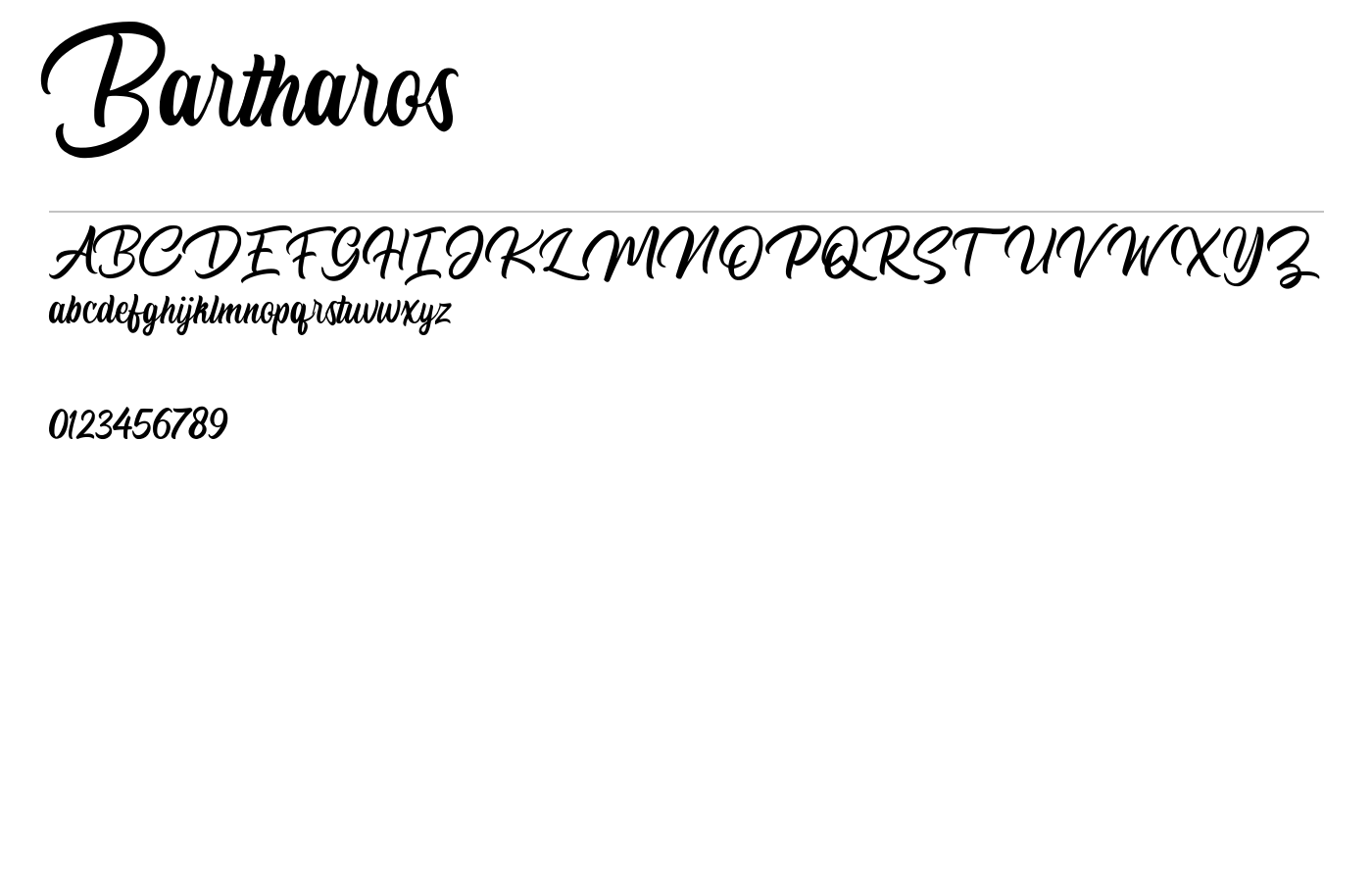
Bartharos is a stylish script font with a bold yet elegant feel, featuring smooth, flowing curves and varying stroke widths that give it a lively and handcrafted appearance. Its balanced mix of uppercase and lowercase letters, along with rounded edges and subtle flourishes, makes it ideal for branding, logos, and invitations that seek a personal, sophisticated touch. This font works well in designs that want to convey warmth and creativity while maintaining a polished and approachable look.